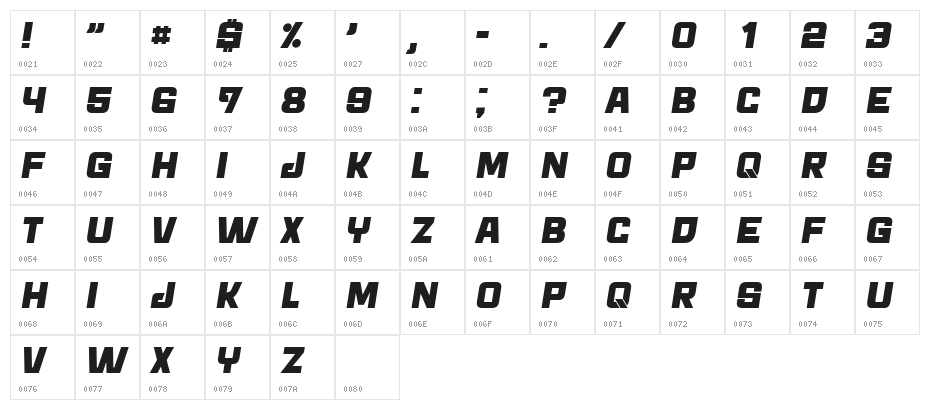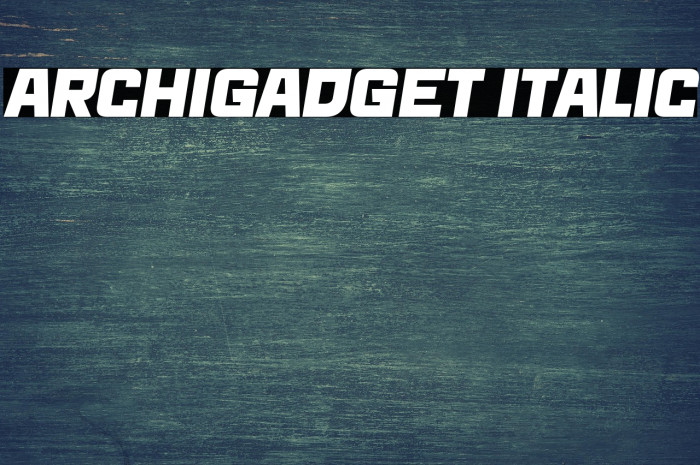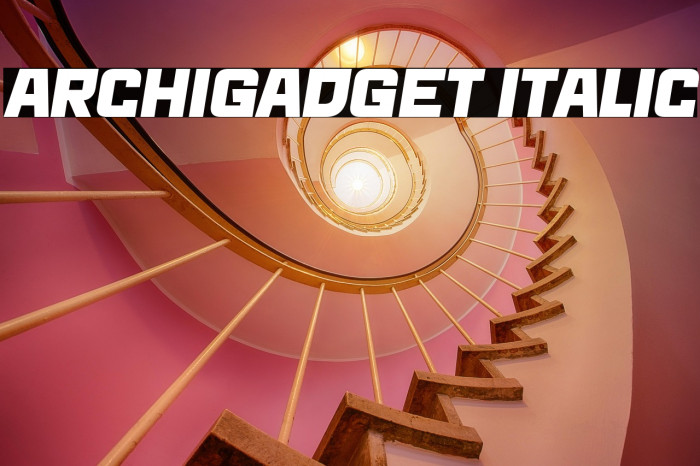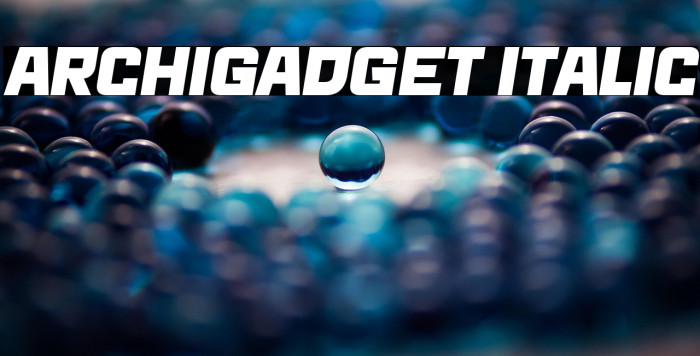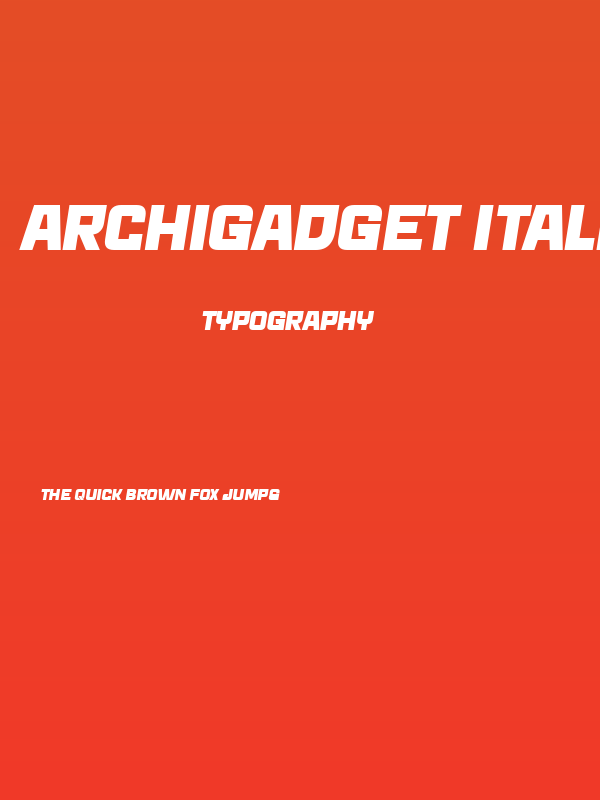
Archigadget Italic Font
Archigadget Italic Description
This font exhibits a bold and dynamic style with a distinct italic slant, giving it a sense of movement and energy. The characters are robust and angular, with sharp edges and a futuristic appearance. The uppercase letters are particularly striking, featuring a consistent width and strong presence. The numerals and special characters maintain the same boldness, ensuring uniformity across all glyphs. The font's design is modern and impactful, making it suitable for attention-grabbing headlines or branding. Its geometric structure and italicized form add a unique flair, making it stand out in any design project.
| Proposed Projects | Ideal for sports branding, tech-related designs, futuristic themes, and dynamic advertising campaigns. |